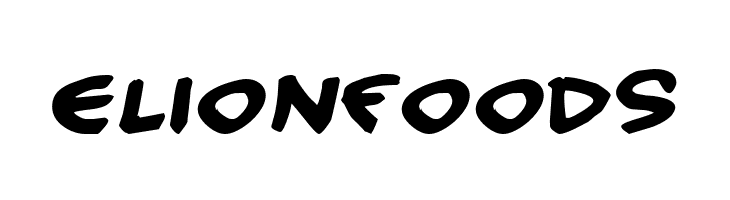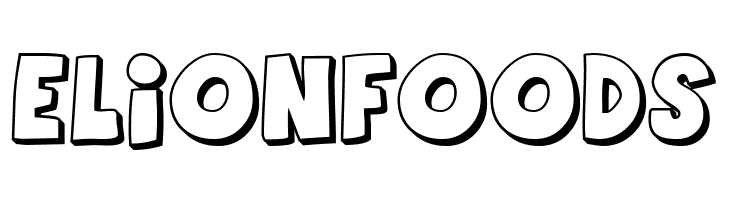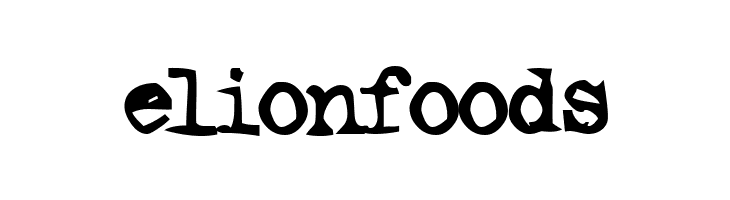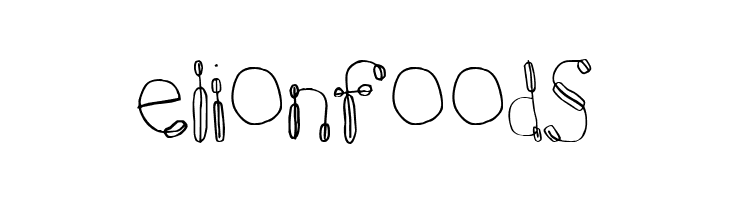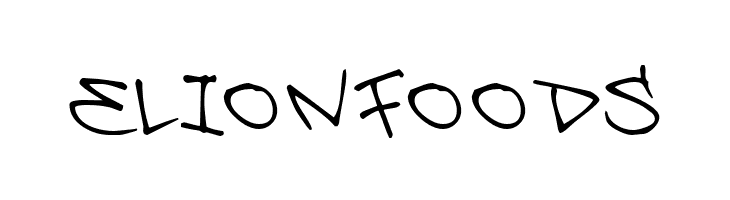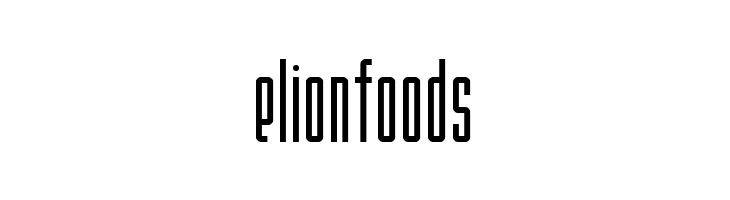
A bold, playful handwritten font with thick, rounded strokes.
A bold, playful font with rounded characters and a cartoonish outline.
A bold, textured font with a rugged, hand-drawn appearance.
A playful, hand-drawn font with irregular and whimsical letterforms.
A playful, hand-drawn font with looped, doodle-like characters.
A bold, aggressive font with sharp, angular lines and dynamic slant.
A tall, narrow font with high contrast and a modern, sophisticated style.
A playful, bubble-like font with rounded, bold characters.